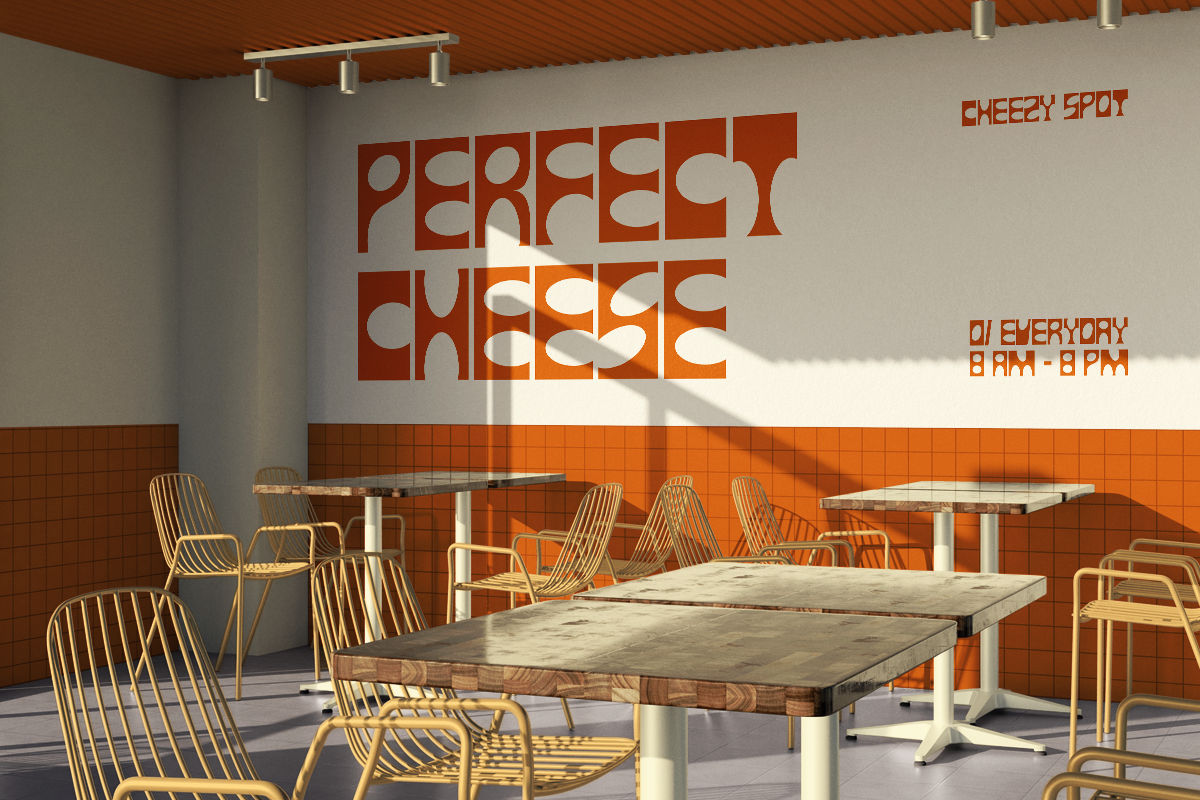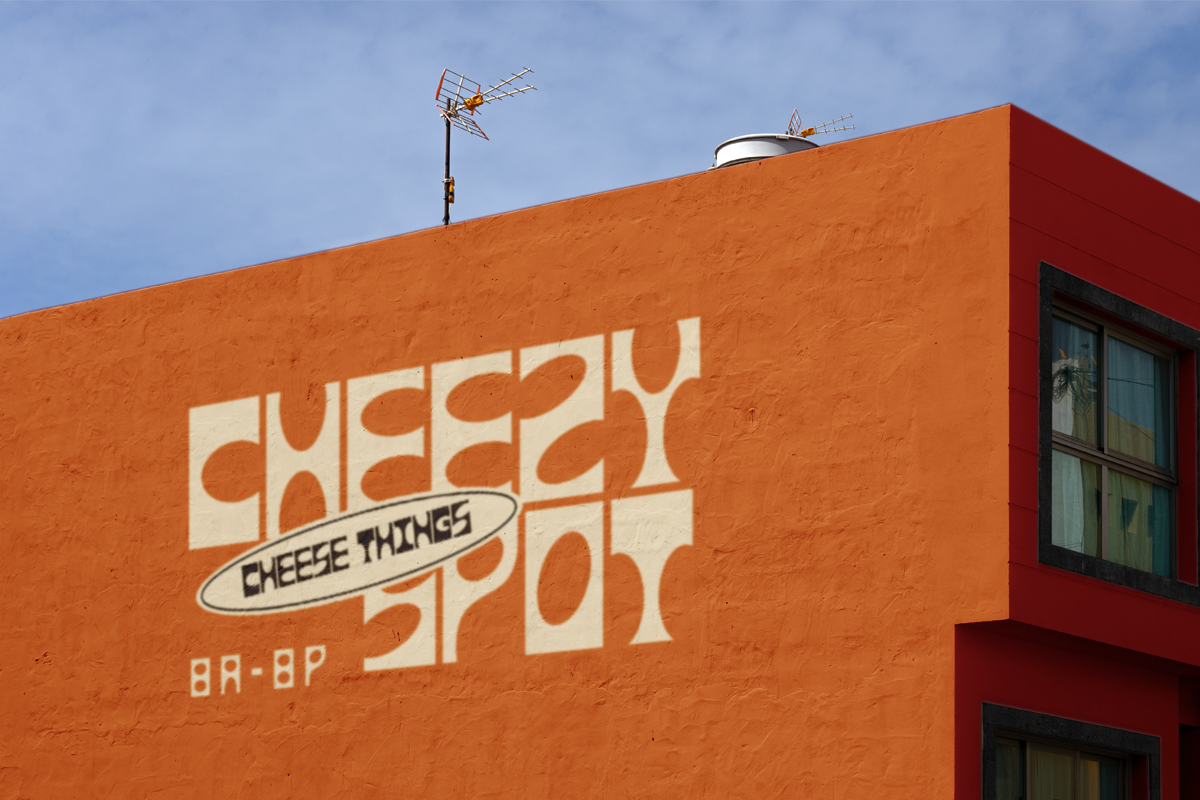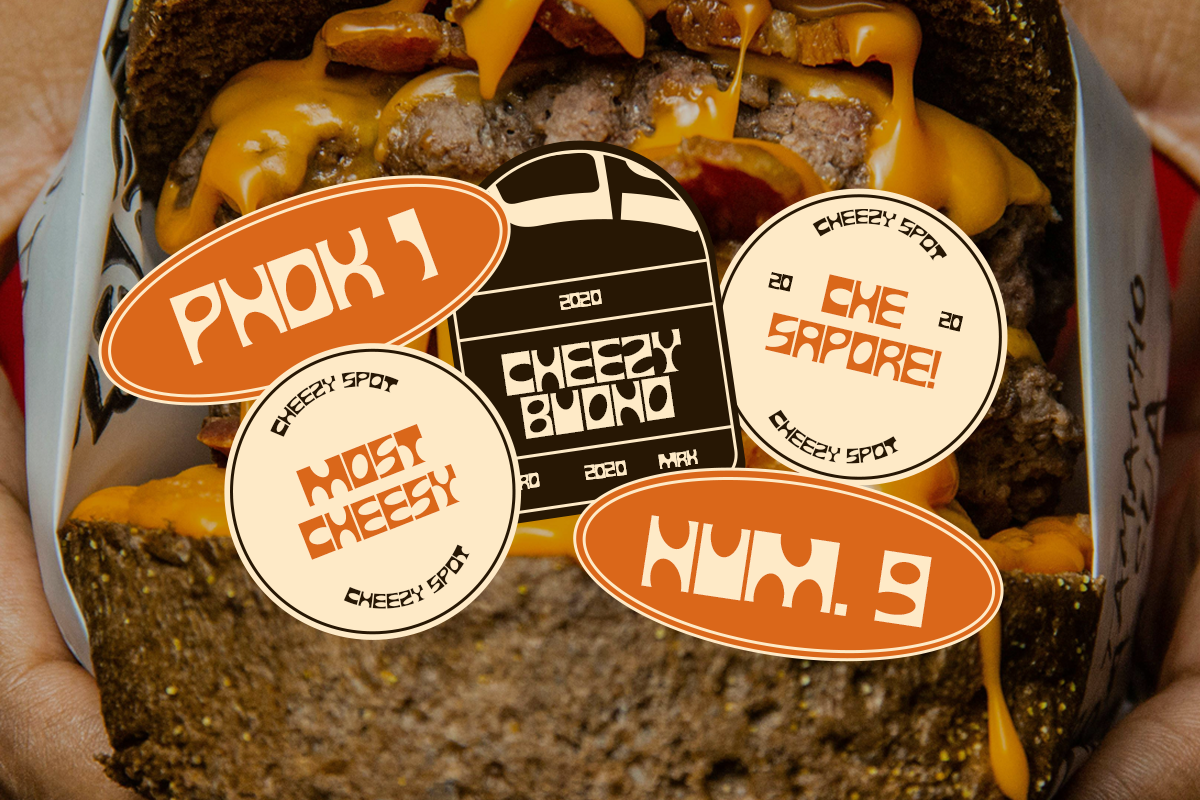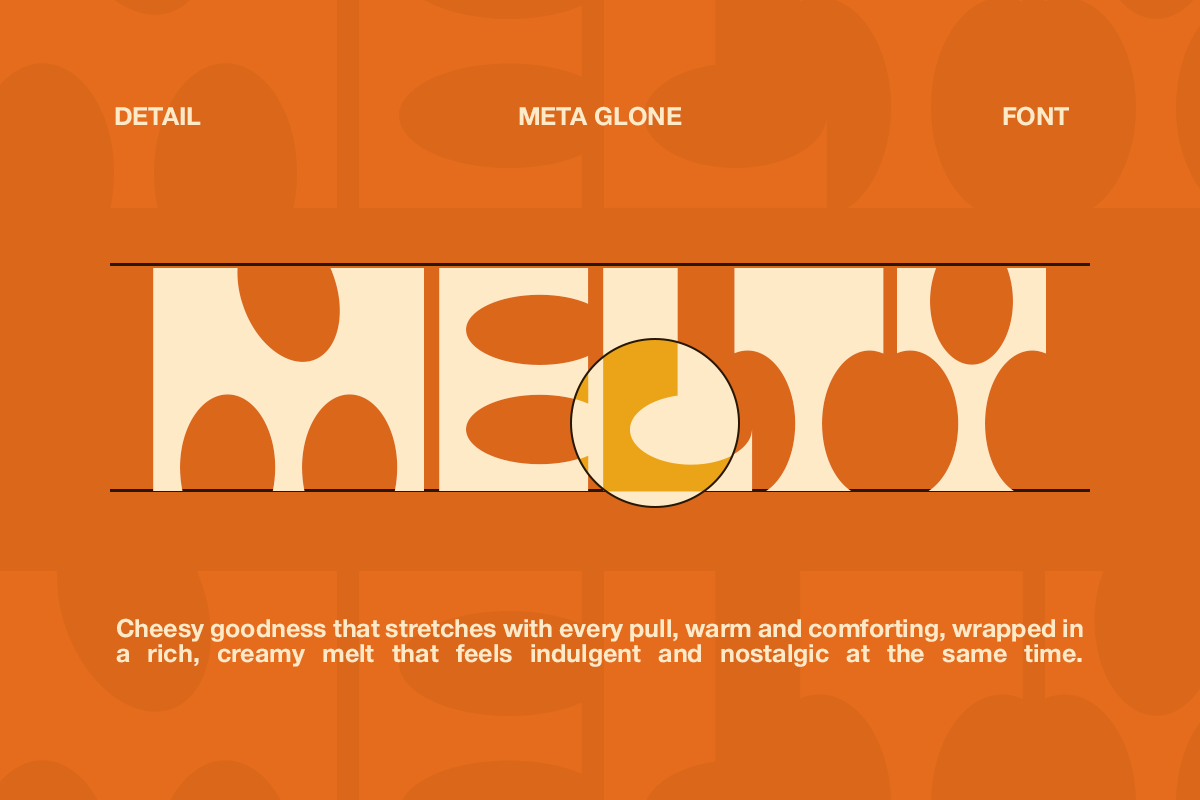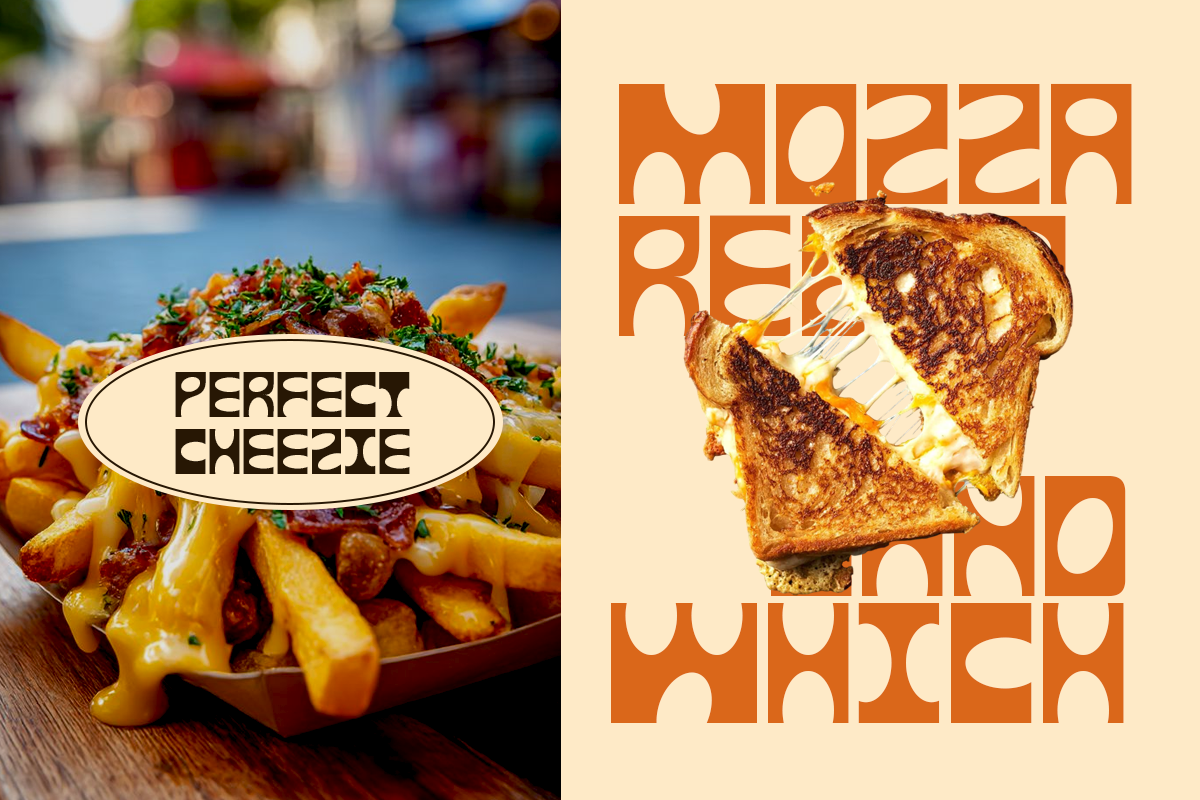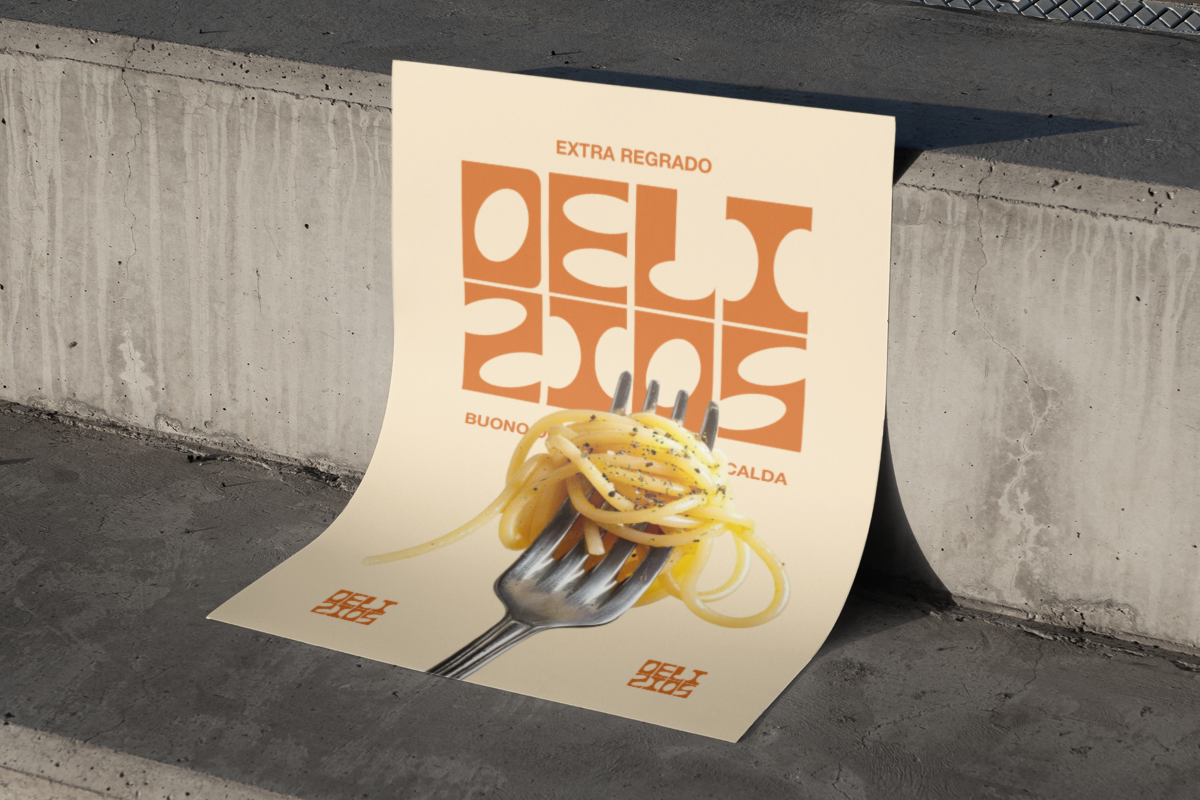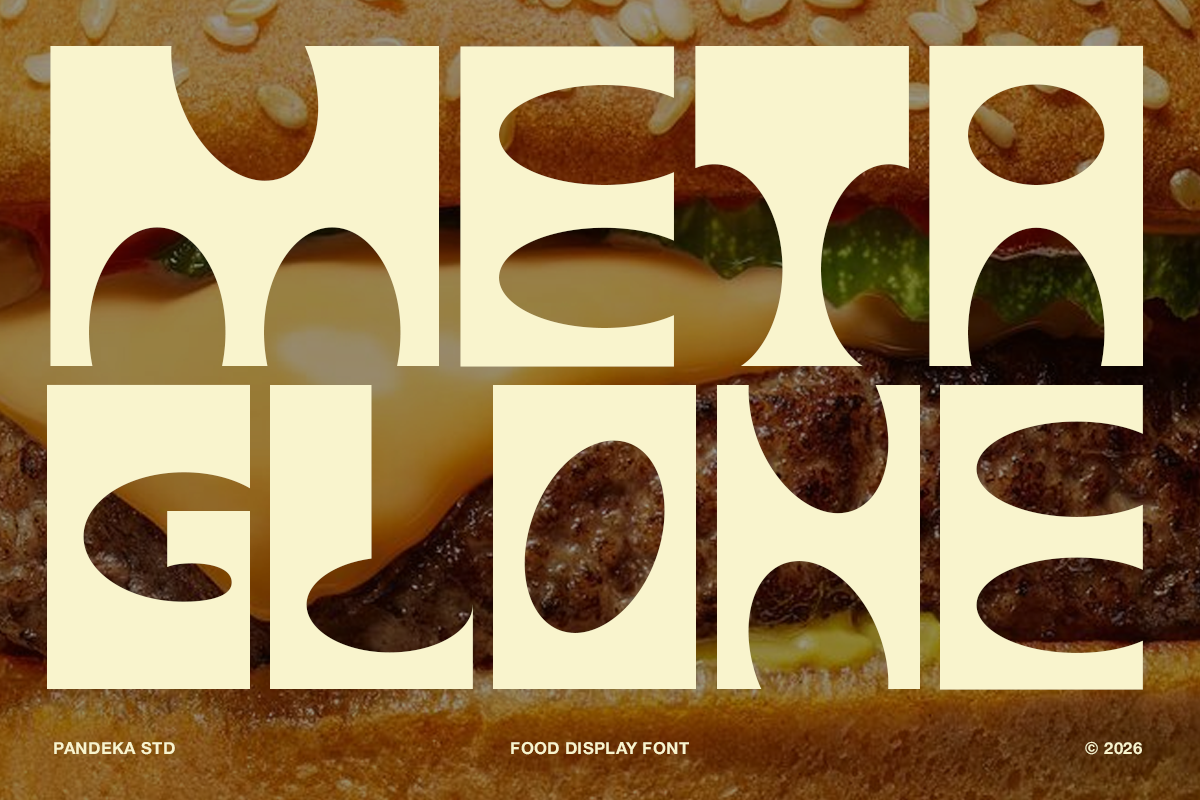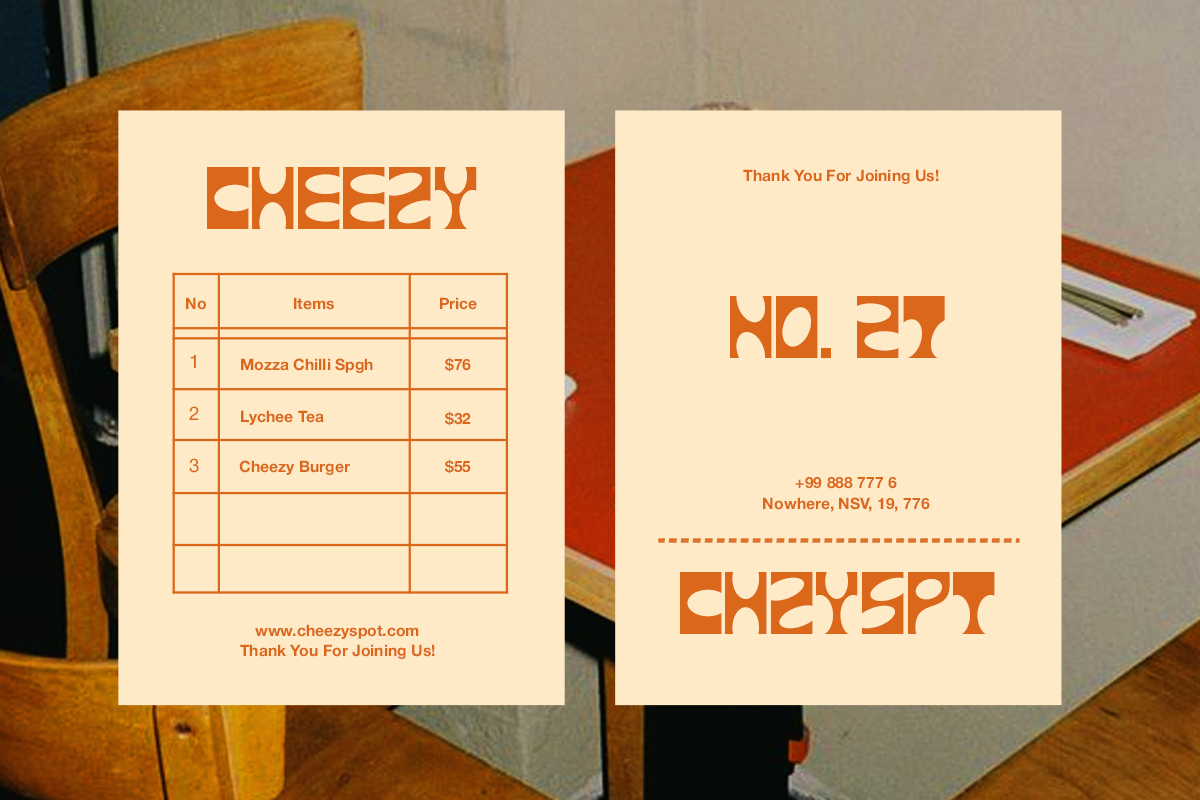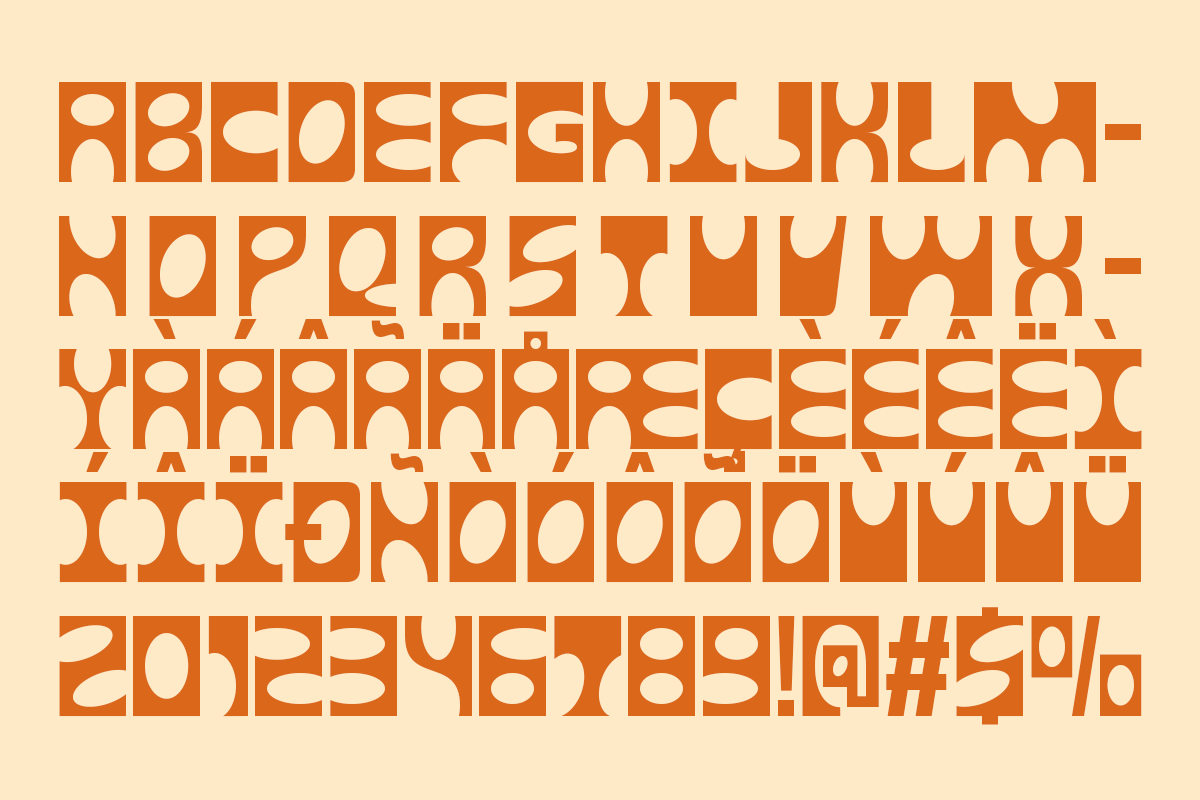
Meta Glone - Food Display Font
Meta Glone is a bold and playful display font designed specifically for eye-catching food branding and packaging. Its chunky letterforms, rounded geometry, and strong visual presence create a fun, tasty, and energetic personality that instantly attracts attention in menus, signage, posters, and product labels. The unique shapes deliver a modern retro feel that works perfectly for fast food brands, cafés, snack packaging, and creative culinary campaigns.
This font comes in 2 styles: Regular and Outline, giving designers flexibility to create layered typography, highlights, and dynamic compositions. Ideal for restaurant logos, food packaging, promotional graphics, menu layouts, and social media visuals, Meta Glone helps your designs stand out with bold flavor, strong character, and memorable impact.